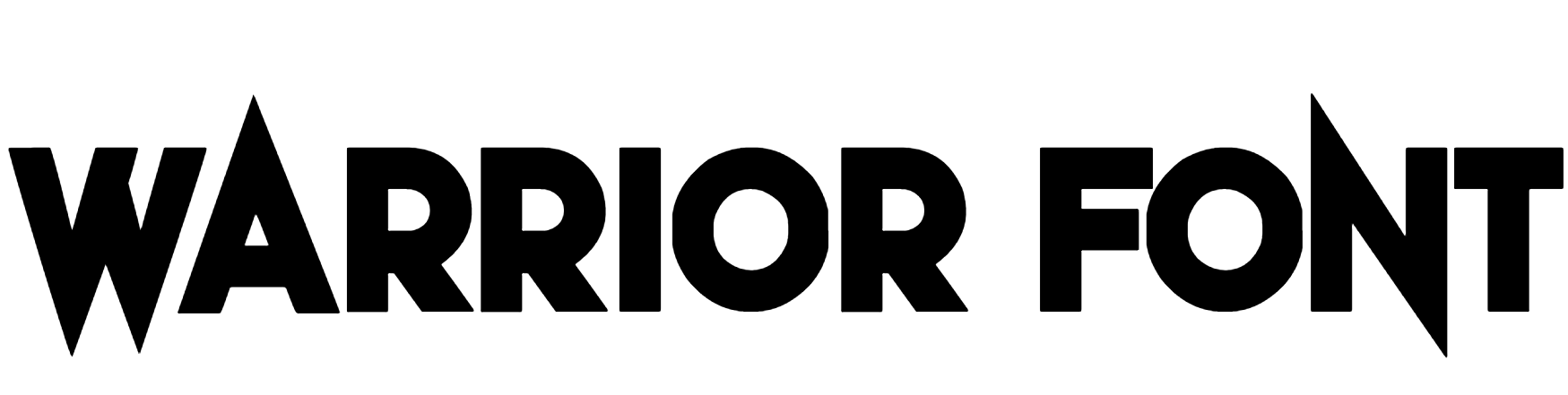
warrior
warrior is a fancy font created by HayoYuka (2021). It's a decorative display font with plenty of personality, made to grab attention. It's a free download, and you can try it with your own text in the preview above first.
What You Can Type With warrior
warrior covers the full alphabet in upper and lowercase, plus all ten numbers, so you can set names, dates and prices without switching fonts. Common punctuation such as &, !, ? and @ is included as well. It also has the accented letters you need for Spanish, French, German, Portuguese and Italian.
Where warrior Works Best
Think of warrior for posters, logos and eye-catching headlines. Use it for one standout word or headline and let simpler fonts handle the rest.
Does warrior support accented letters?
Yes. warrior includes the accented letters needed for Spanish, French, German, Portuguese and Italian, so it works for more than just English.